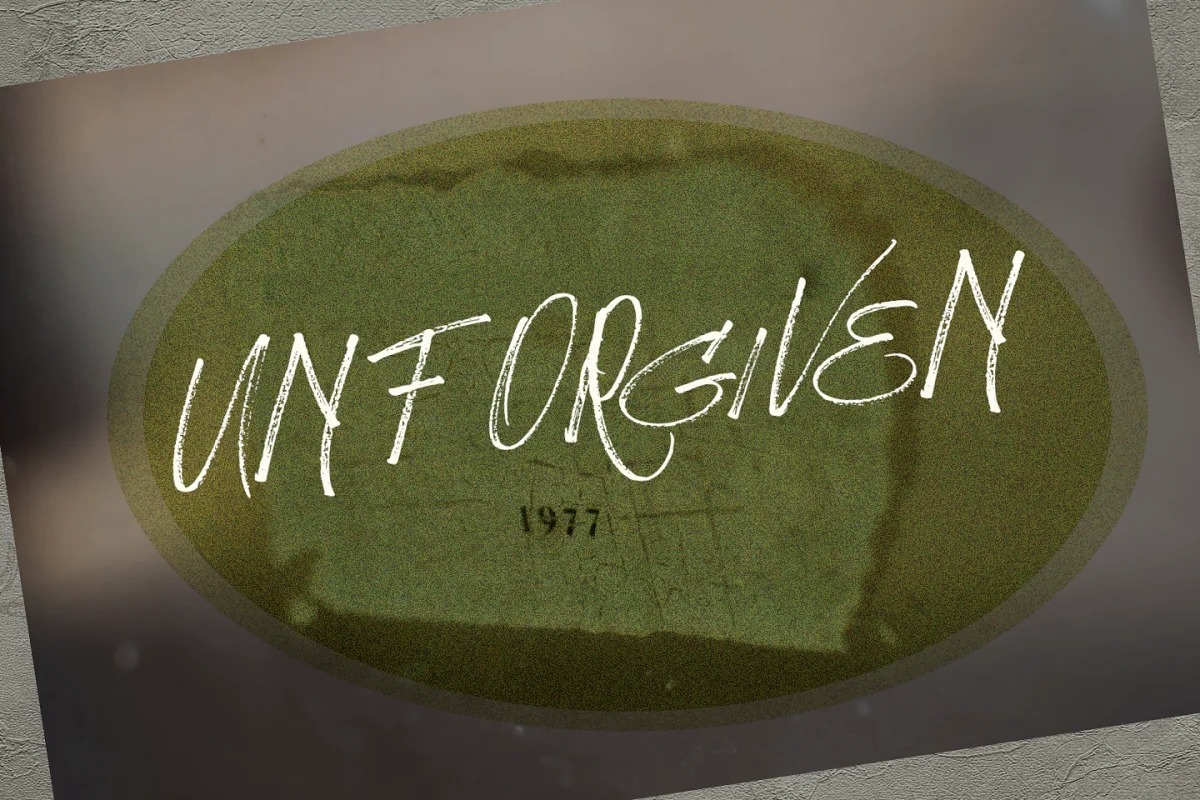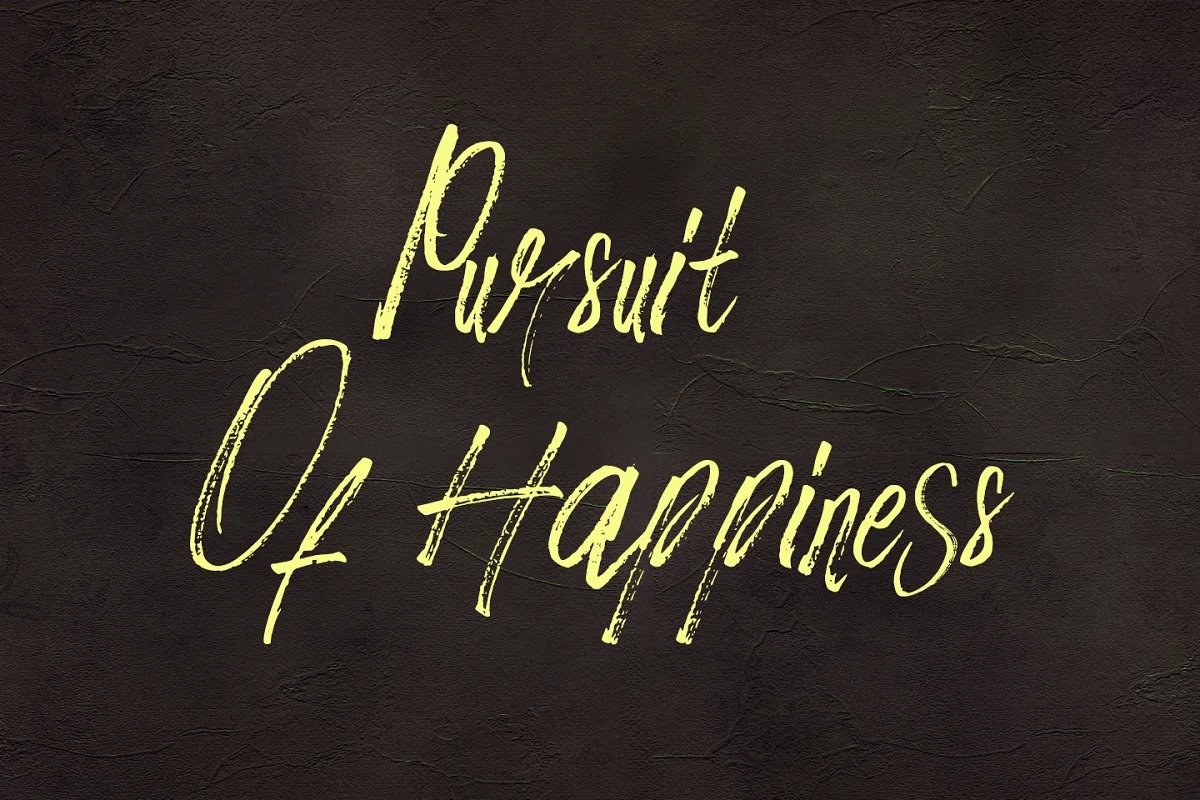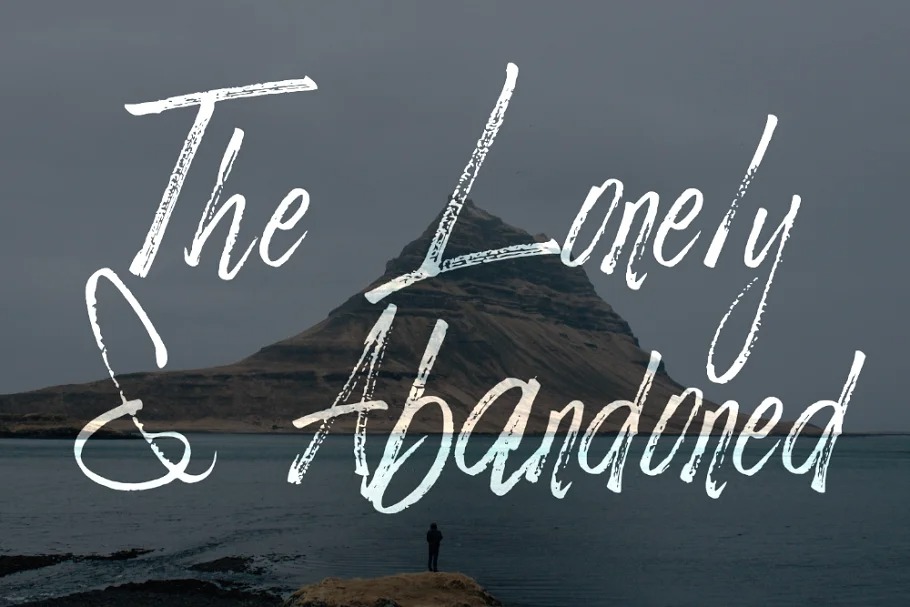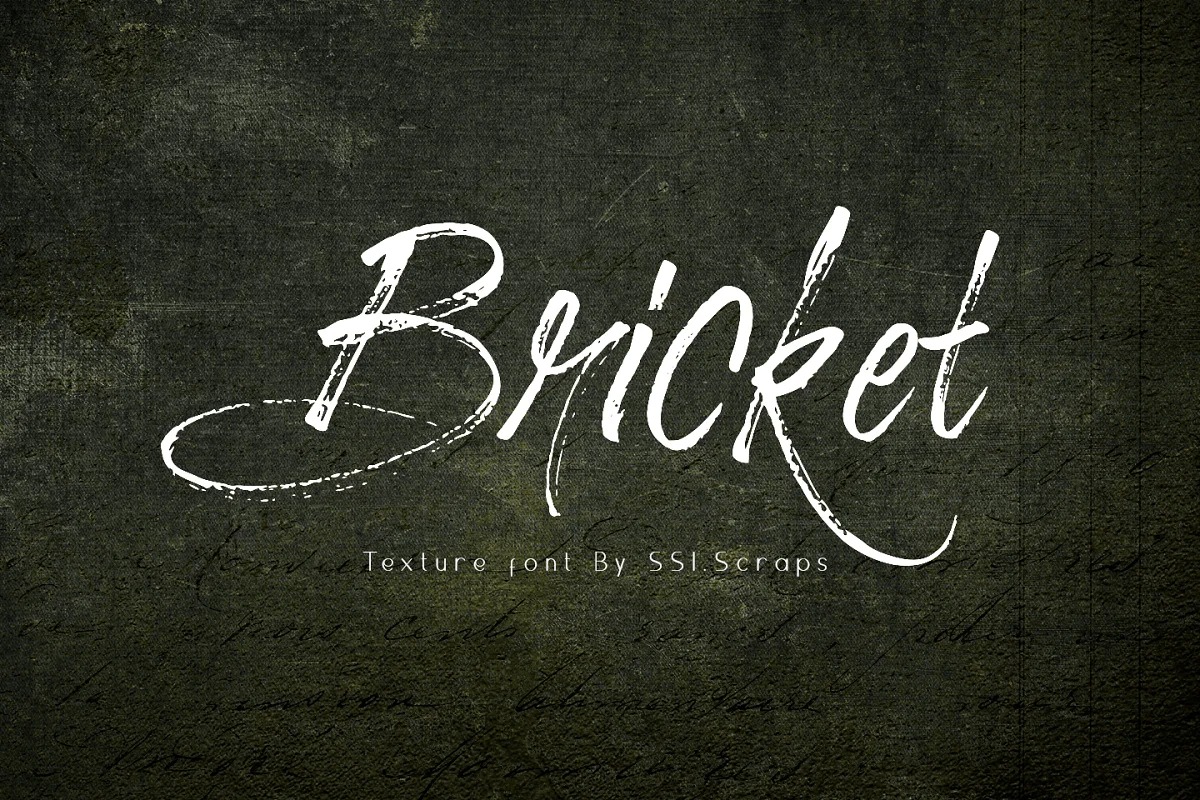
BRICKET Brush Font
This typeface designed by SSI.Scraps is a textured brush font, contemporary approach to design, handcrafted naturally and underlined. It maintains its classy calligraphic influences while feeling contemporary and fresh. This versatility will appeal to a wide range of crafty ideas, from letterheads and titles to stationery.